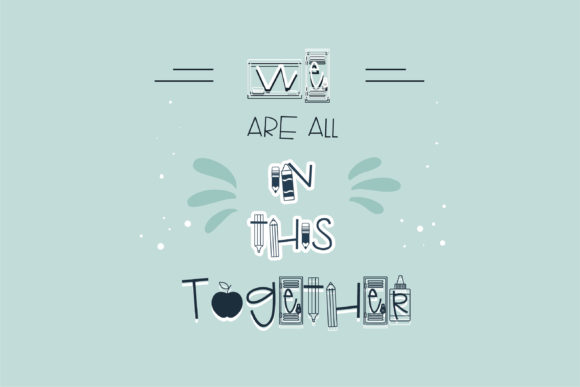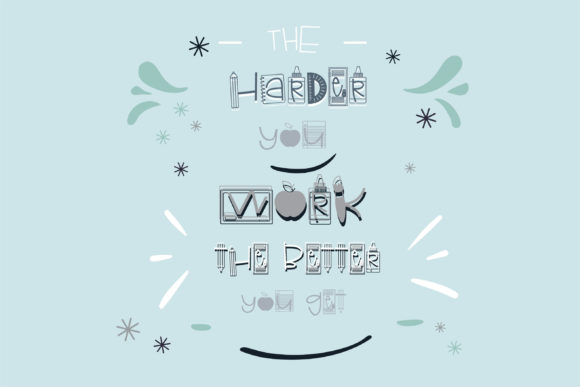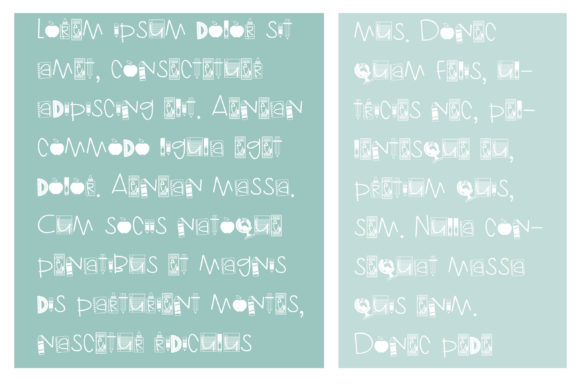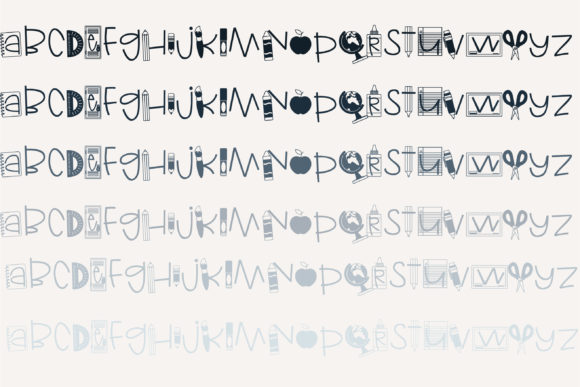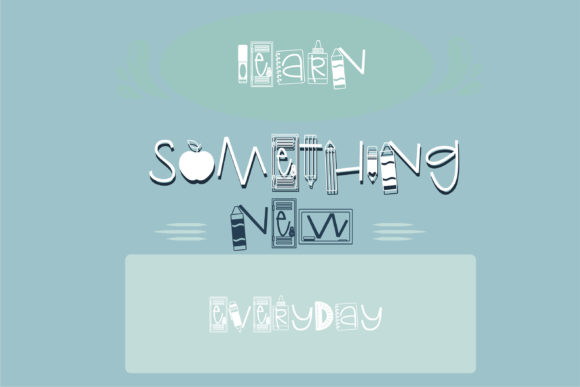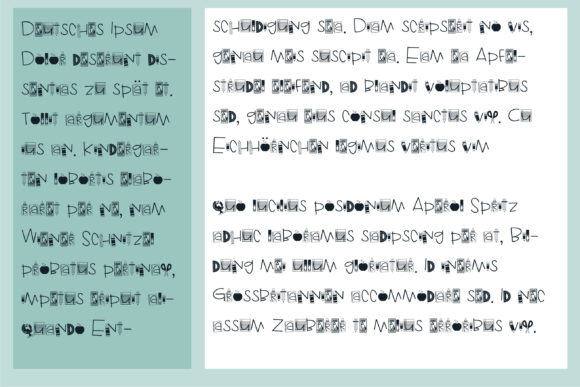
Introducing Education Font: A Playful and Decorative Typeface for Learning
Education Font is a unique and creative typeface that combines thin letters with school-like elements, making it perfect for designers and crafters looking for a playful and decorative font. This handmade font is designed to evoke a sense of nostalgia and fun, making it ideal for educational materials, crafts, and DIY projects.
A Beautiful Combination of Letters and Icons
Education Font features a beautiful combination of thin letters and icons, creating a lovely playful look that’s sure to capture the attention of your audience. The font includes a range of school-like elements, such as apples, books, and pencils, which are intricately designed to add a touch of whimsy to your designs.
Education Font is perfect for designers and crafters who want to add a personal touch to their projects. Whether you’re creating educational materials, such as worksheets, posters, or flashcards, or working on a craft project, such as making cards, gift tags, or scrapbooking, this font is sure to inspire your creativity.
Key Features of Education Font
- Handmade decorative font featuring school-like elements
- Thin letters beautifully combined with icons
- Lovely playful look that’s perfect for educational materials and crafts
- Includes a range of school-like elements, such as apples, books, and pencils
- Perfect for designers and crafters looking for a unique and creative font
Uses for Education Font
Education Font can be used for a variety of projects, including:
- Educational materials, such as worksheets, posters, and flashcards
- Craft projects, such as making cards, gift tags, and scrapbooking
- Doodle art and journaling
- Sign making and display letters
- Any project that requires a playful and decorative font
Tips for Using Education Font
Here are some tips for using Education Font in your projects:
- Use Education Font to add a personal touch to your educational materials and crafts
- Combine Education Font with other fonts and graphics to create a unique look
- Use Education Font to create eye-catching headings and titles
Education Font is a unique and creative typeface that’s perfect for designers and crafters looking for a playful and decorative font. With its beautiful combination of thin letters and school-like elements, this font is sure to inspire your creativity and add a personal touch to your projects. Whether you’re creating educational materials, crafts, or DIY projects, Education Font is a great choice.